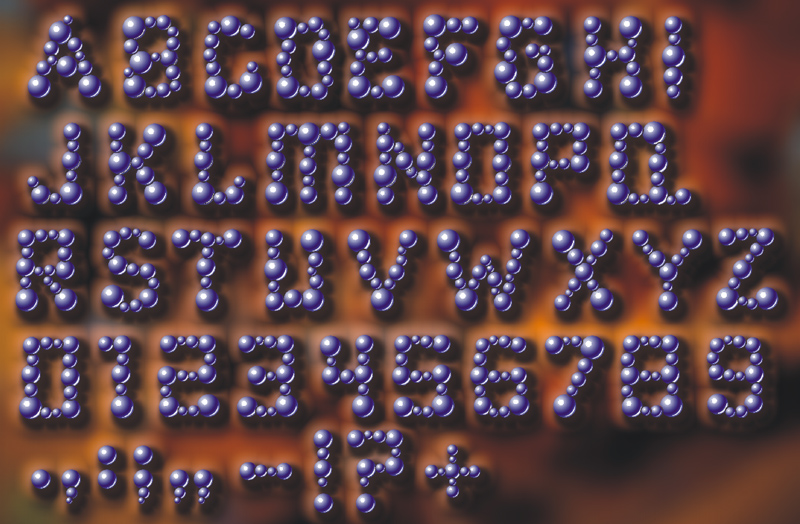
Font name: | Bear Balling / Ball Bearings |
Author: | Mike Wolf |
Note by Mike Wolf | |
Ball Bearings is a variant of Bear Balling, with each ball a discrete form as opposed to all flowing together in an amalgamated shape. |